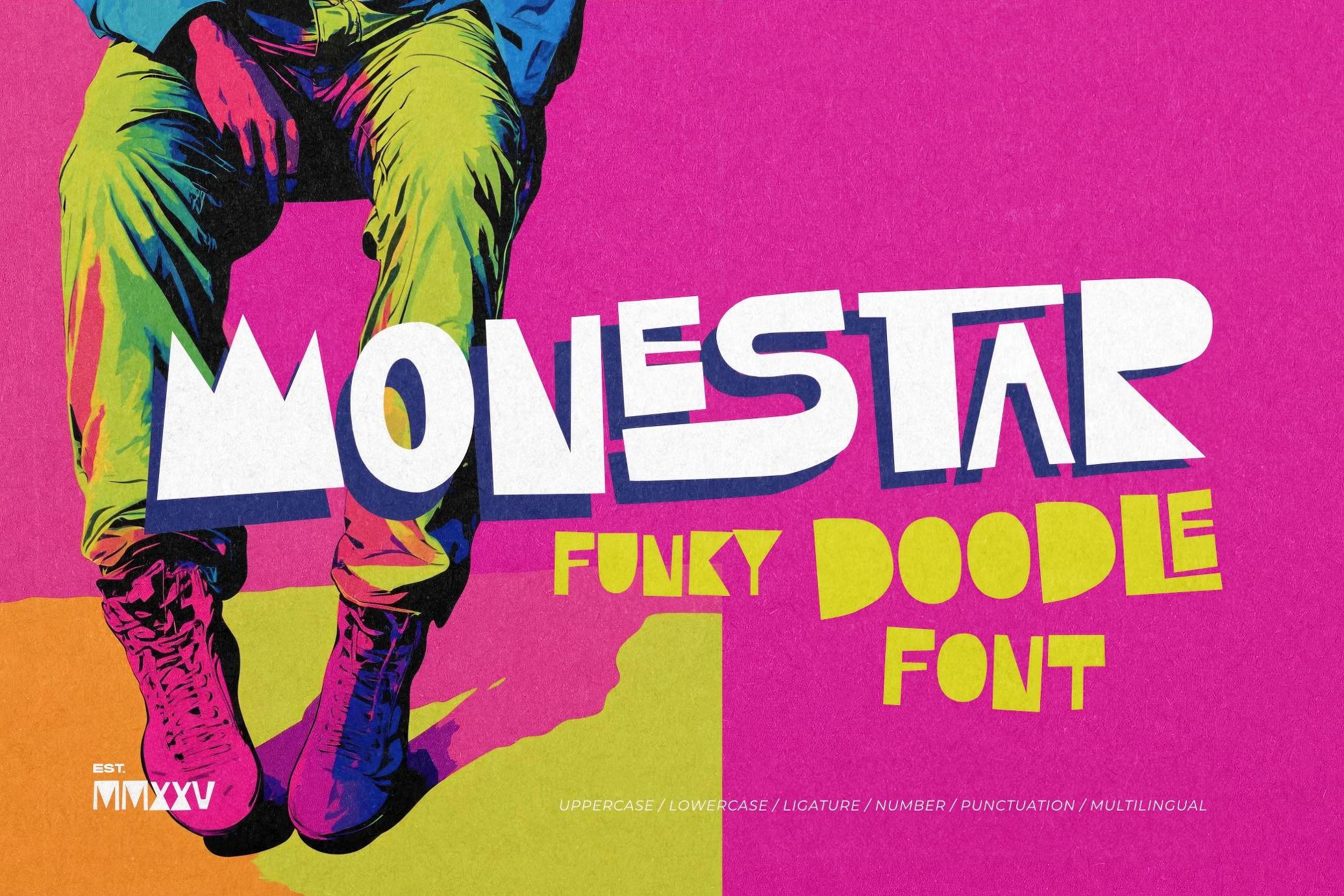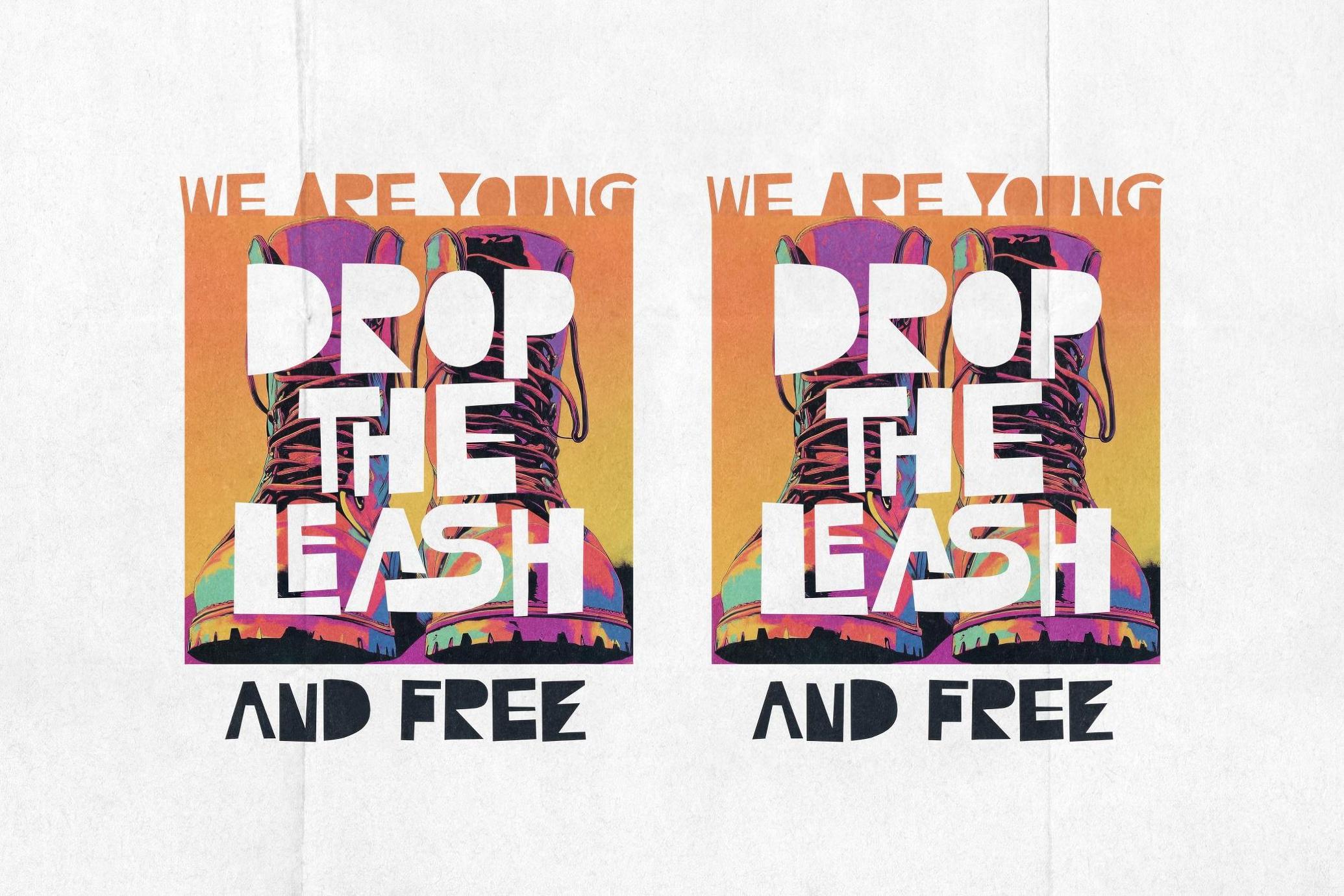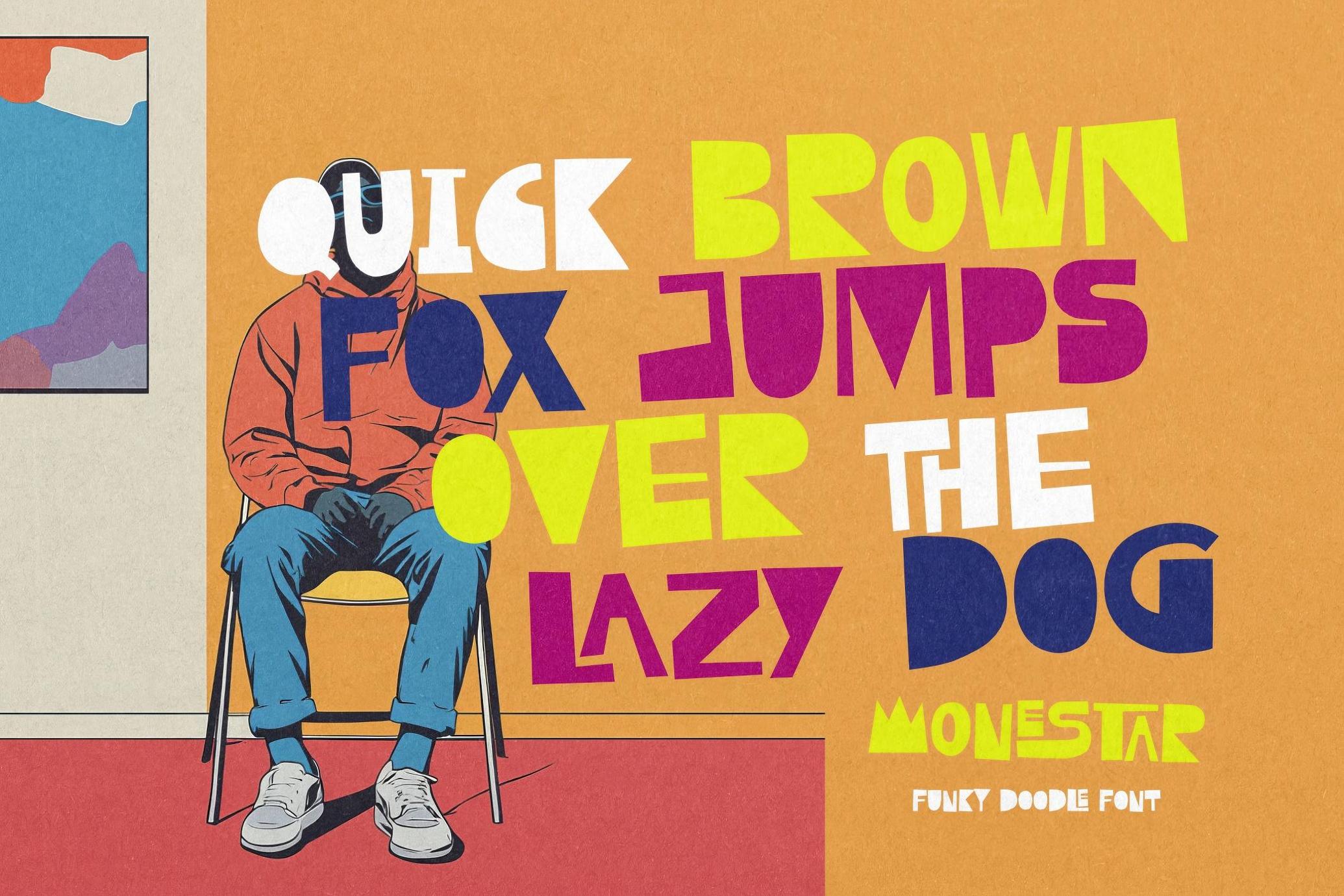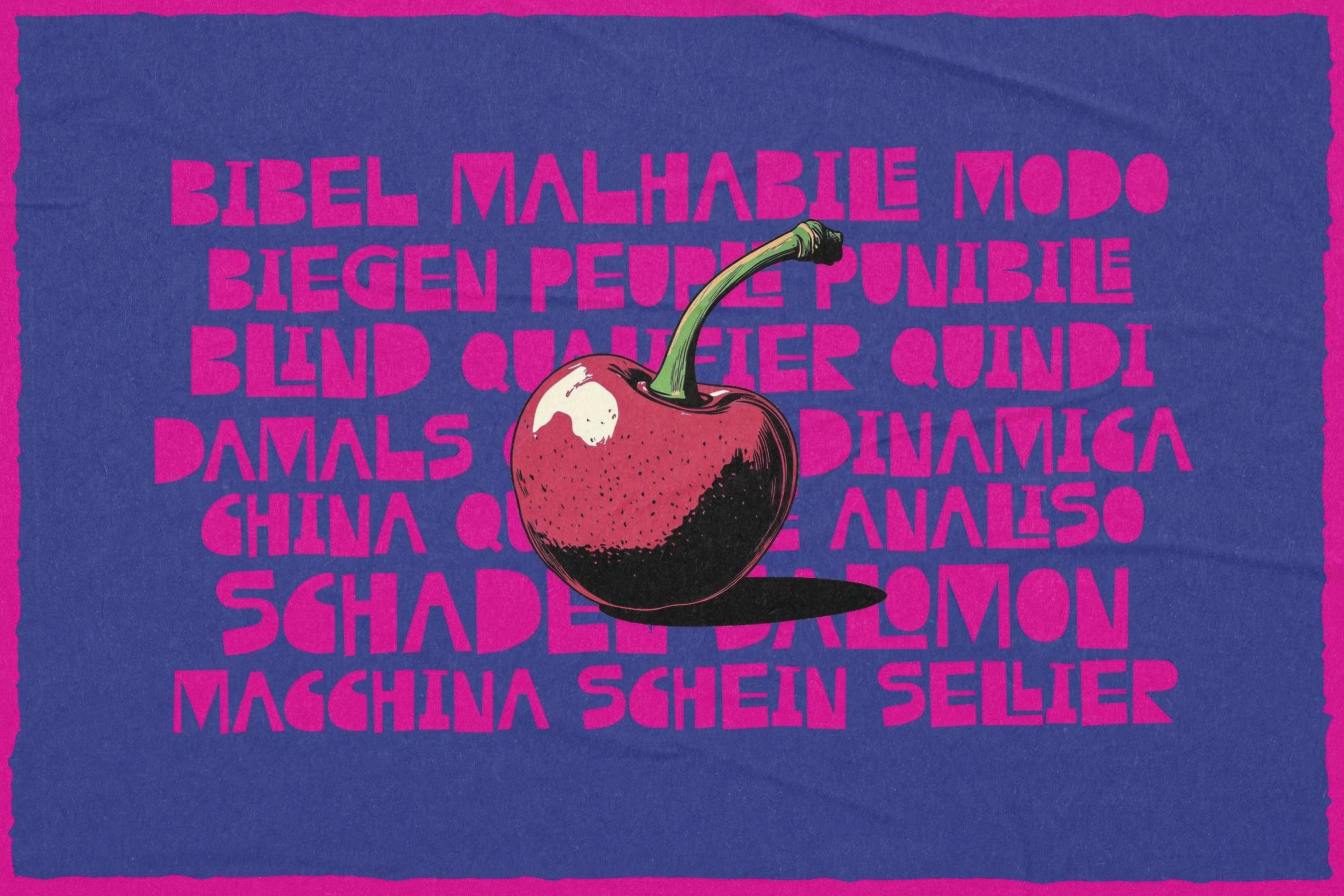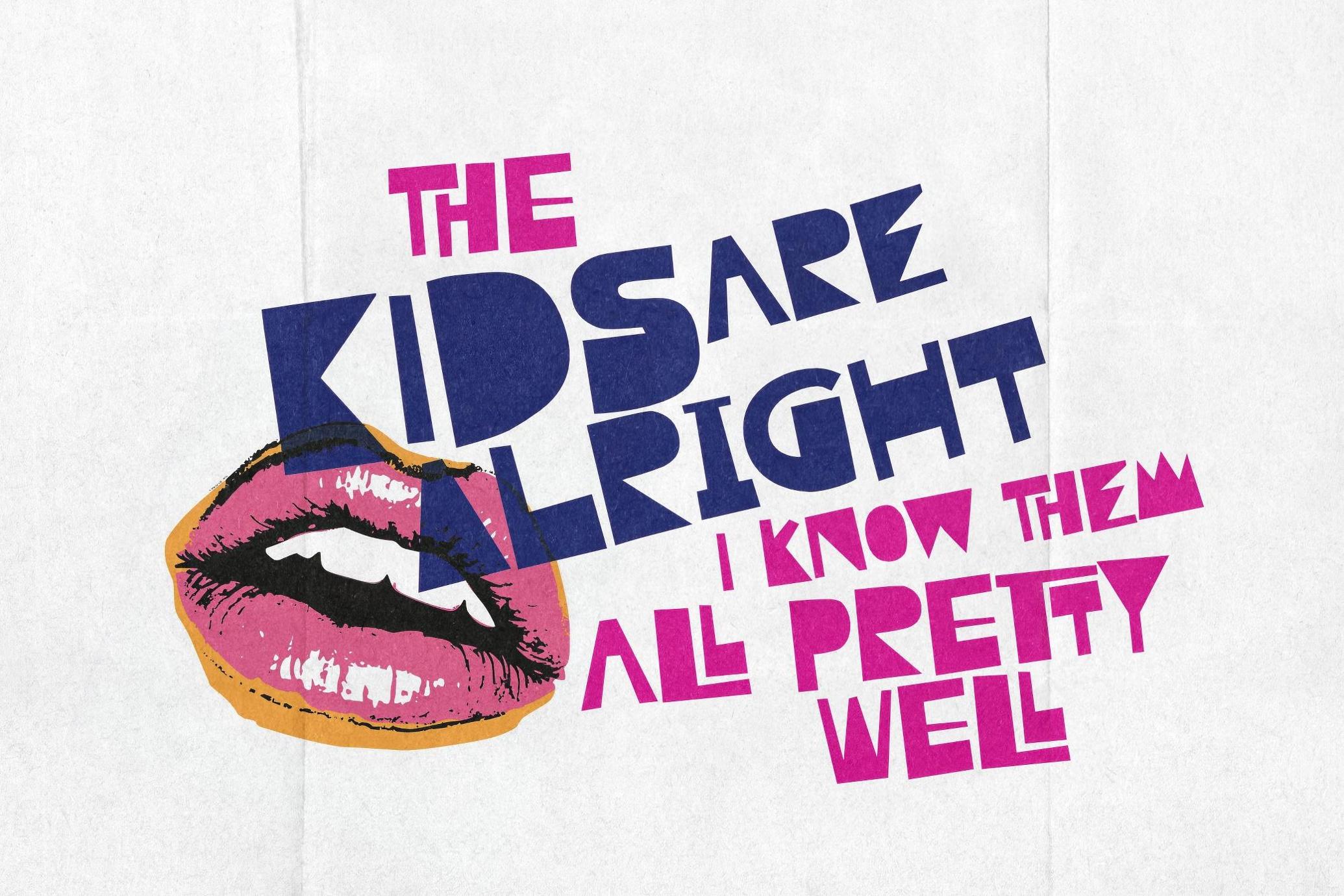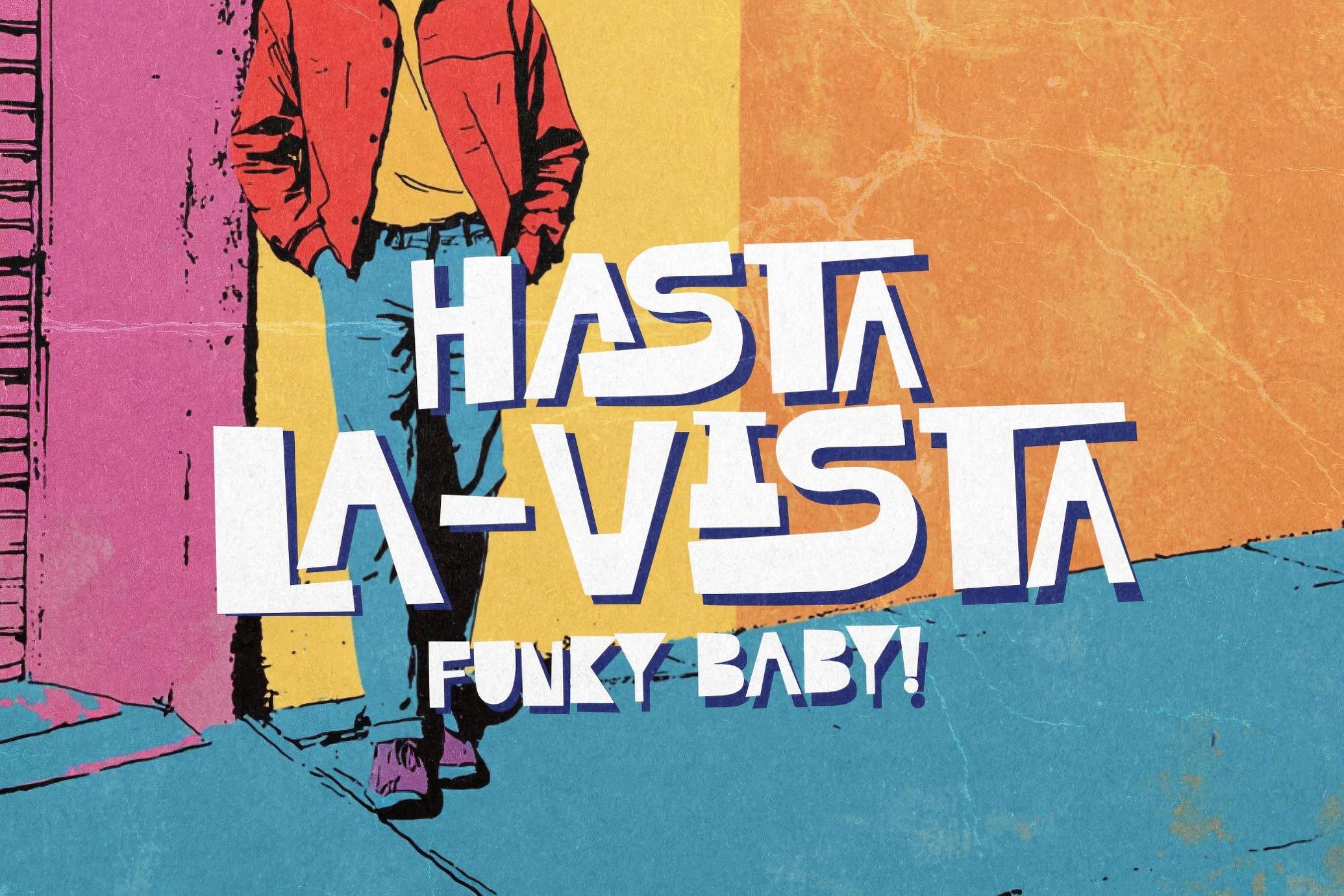
Monestar Funky Doodle Font
Monestar
The Monestar font dances on the edge of chaos and charm. It's built with offbeat geometry and wild energy that bounces, squiggles, and eventually turns your layouts into a playground. Every glyph looks hand-cut and pasted by someone who never colored inside the lines, and that’s the whole point. This all-caps mischief-maker brings 226 glyphs (upper & lower case), numbers, punctuation, quirky ligatures, and a full set of multilingual characters. Great for stickers, tees, posters, kids’ stuff, weird stuff, cool stuff — basically, anything that could use a bit of delightful chaos.